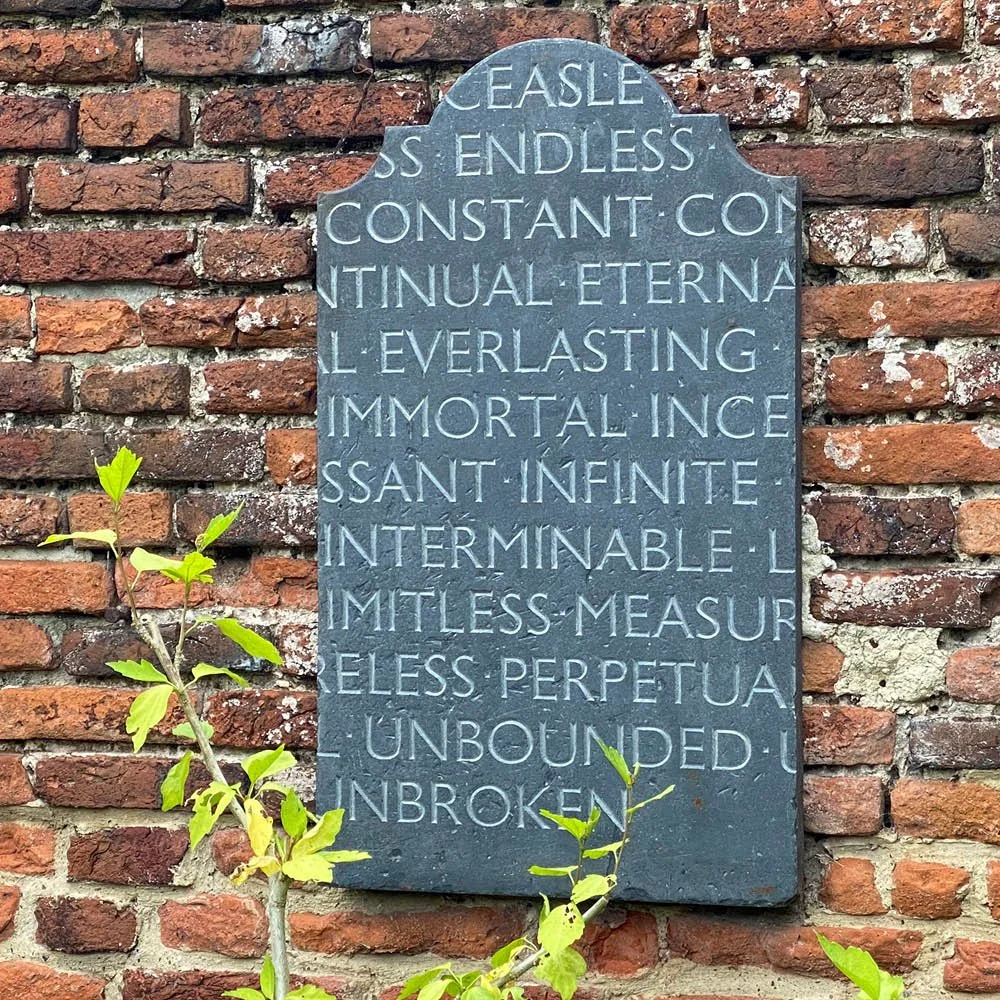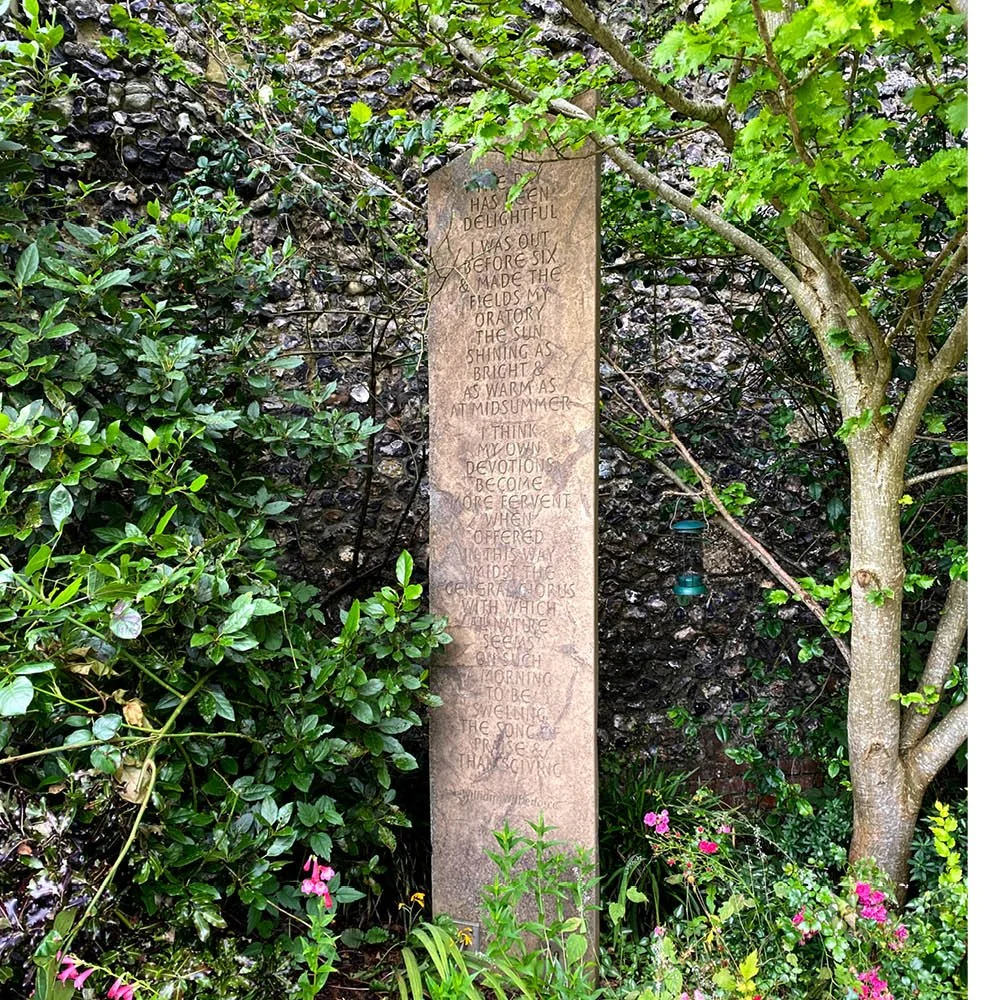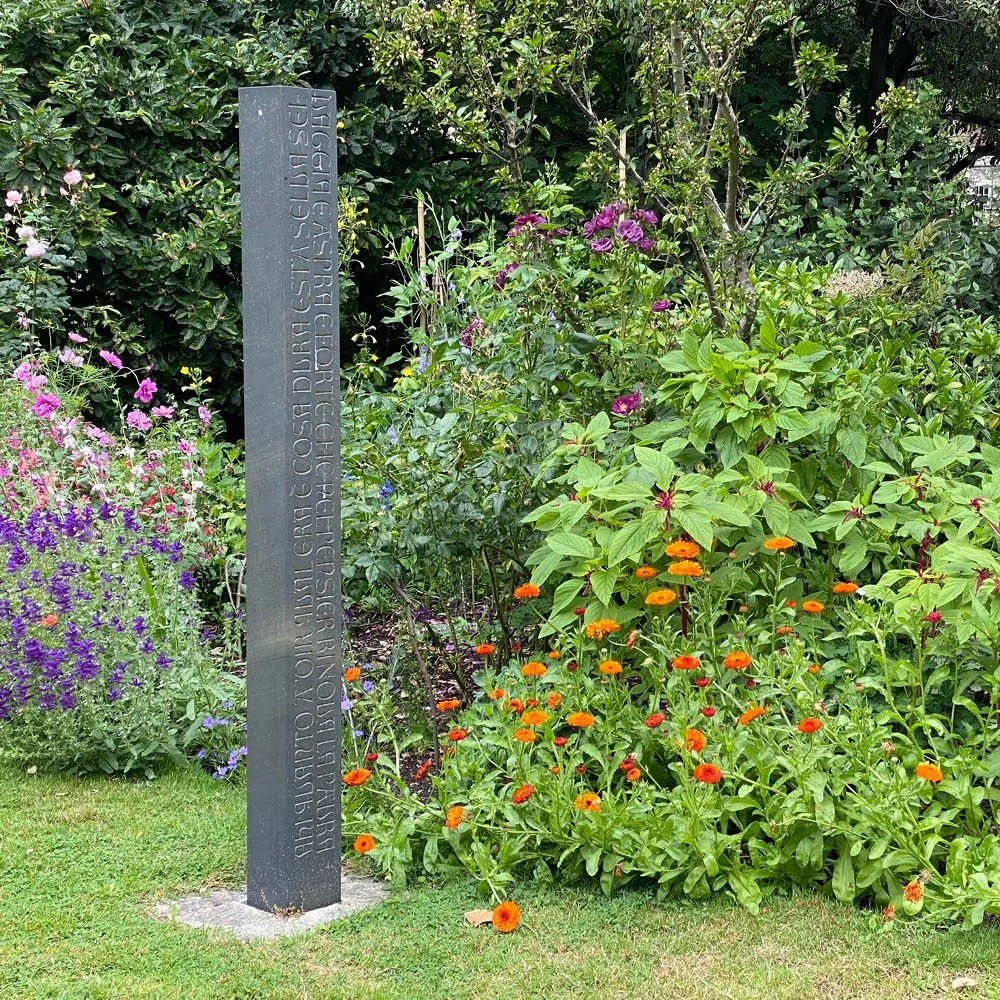
Canterbury Cathedral
In the gardens of Canterbury Cathedral are four works from our Art & Memory Collection. They complement the rich history of ancient and contemporary lettering in the Cathedral itself.
Carved by some of the UK’s foremost lettering artists, these show the range and possibilities of contemporary letter carving. They have a memorial theme and were created without client or churchyard restrictions.